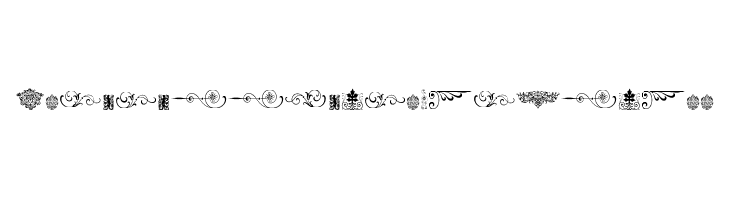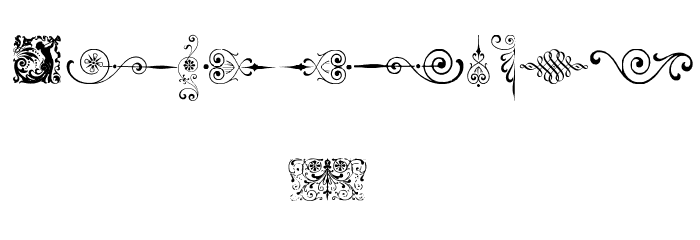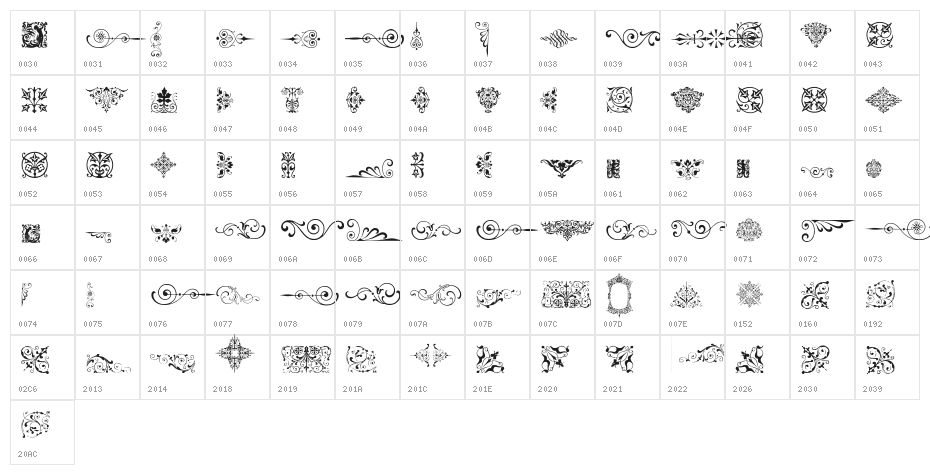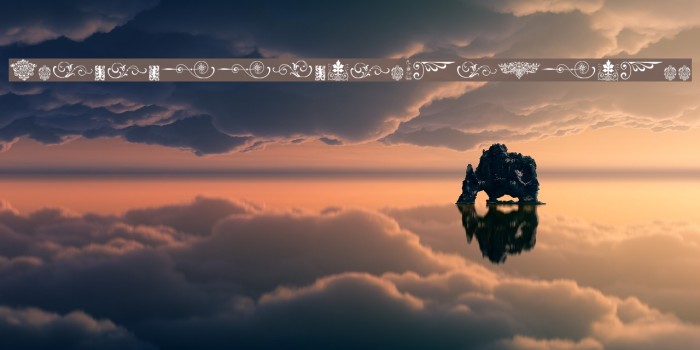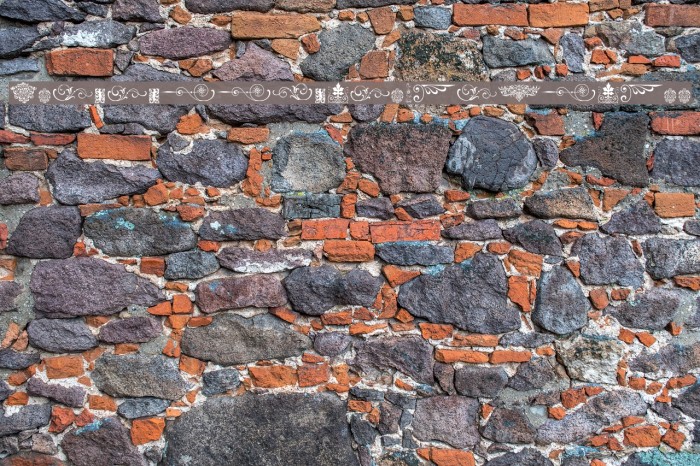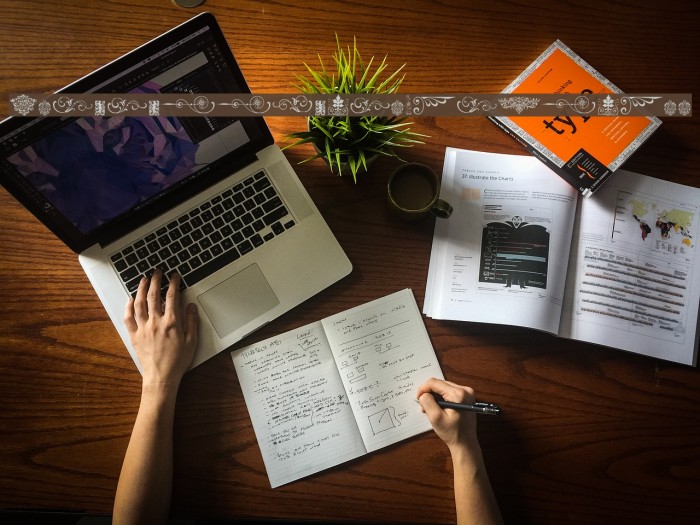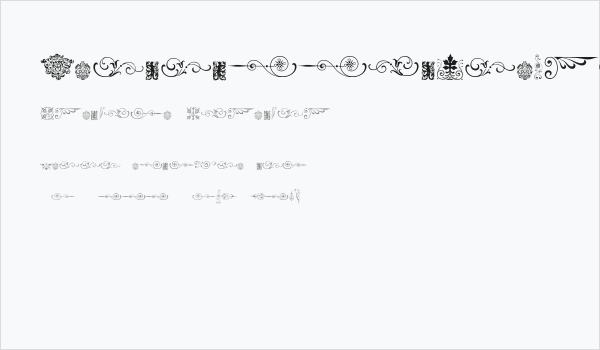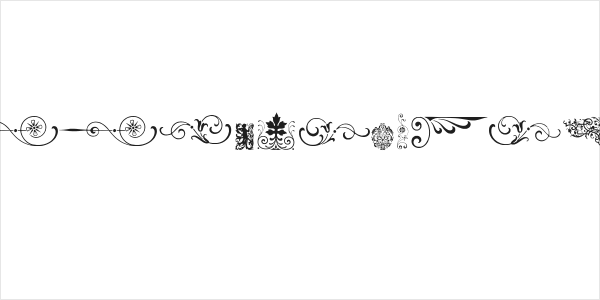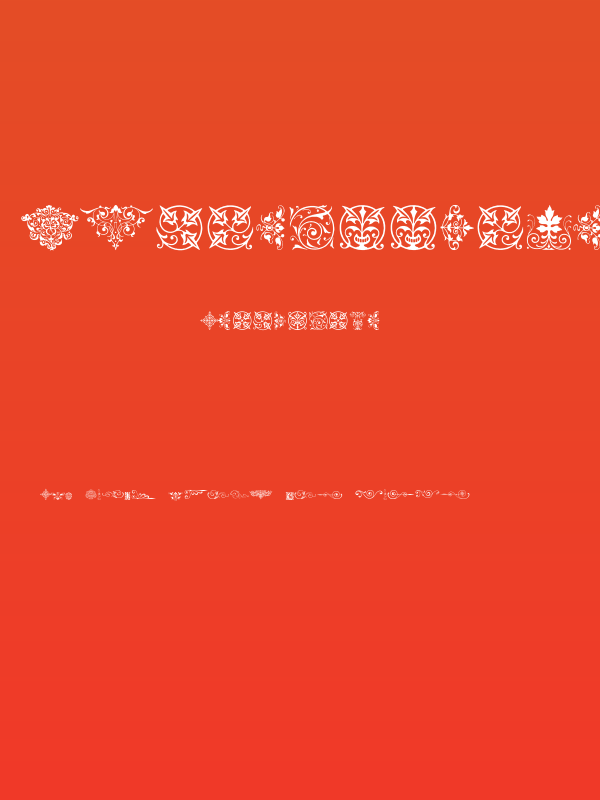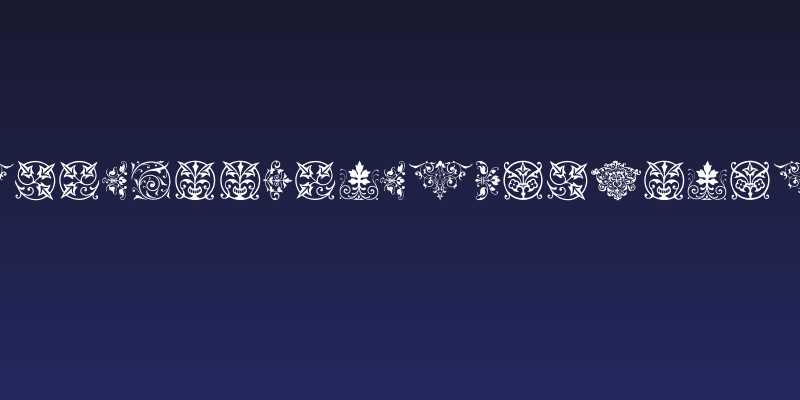
NeoclassicFleuronsFree Font
NeoclassicFleuronsFree Description
A highly decorative set of ornamental fleurons and flourishes featuring intricate, symmetrical designs with floral and scroll motifs, rendered in bold black lines with high detail and contrast.
| Overall Style | Vintage, Decorative, Classic |
| Use Case | Borders, Dividers, Decorative accents, Logos |
| Proposed Projects | Wedding invitations, certificates, book covers, decorative borders, vintage branding, luxury packaging. |